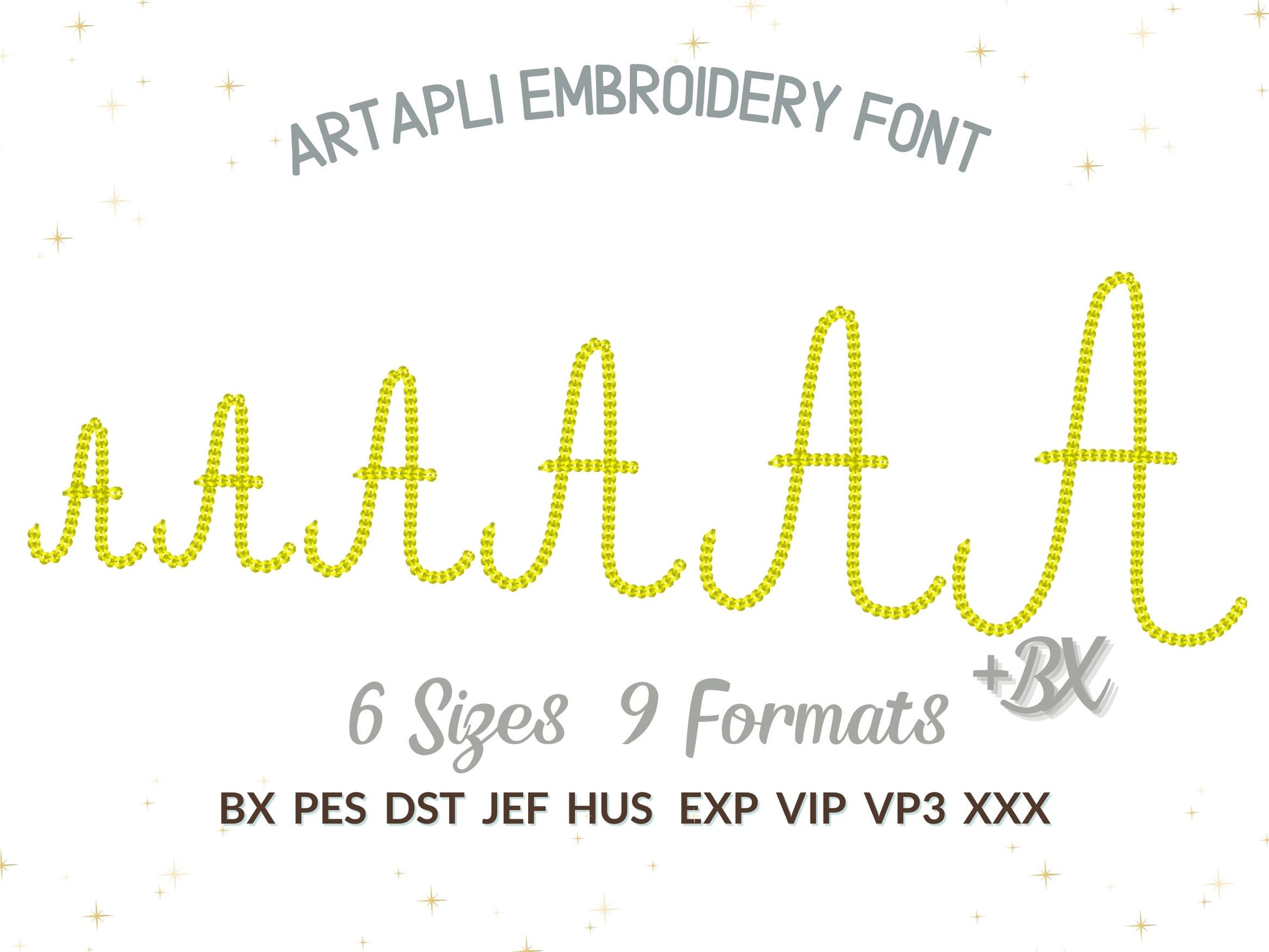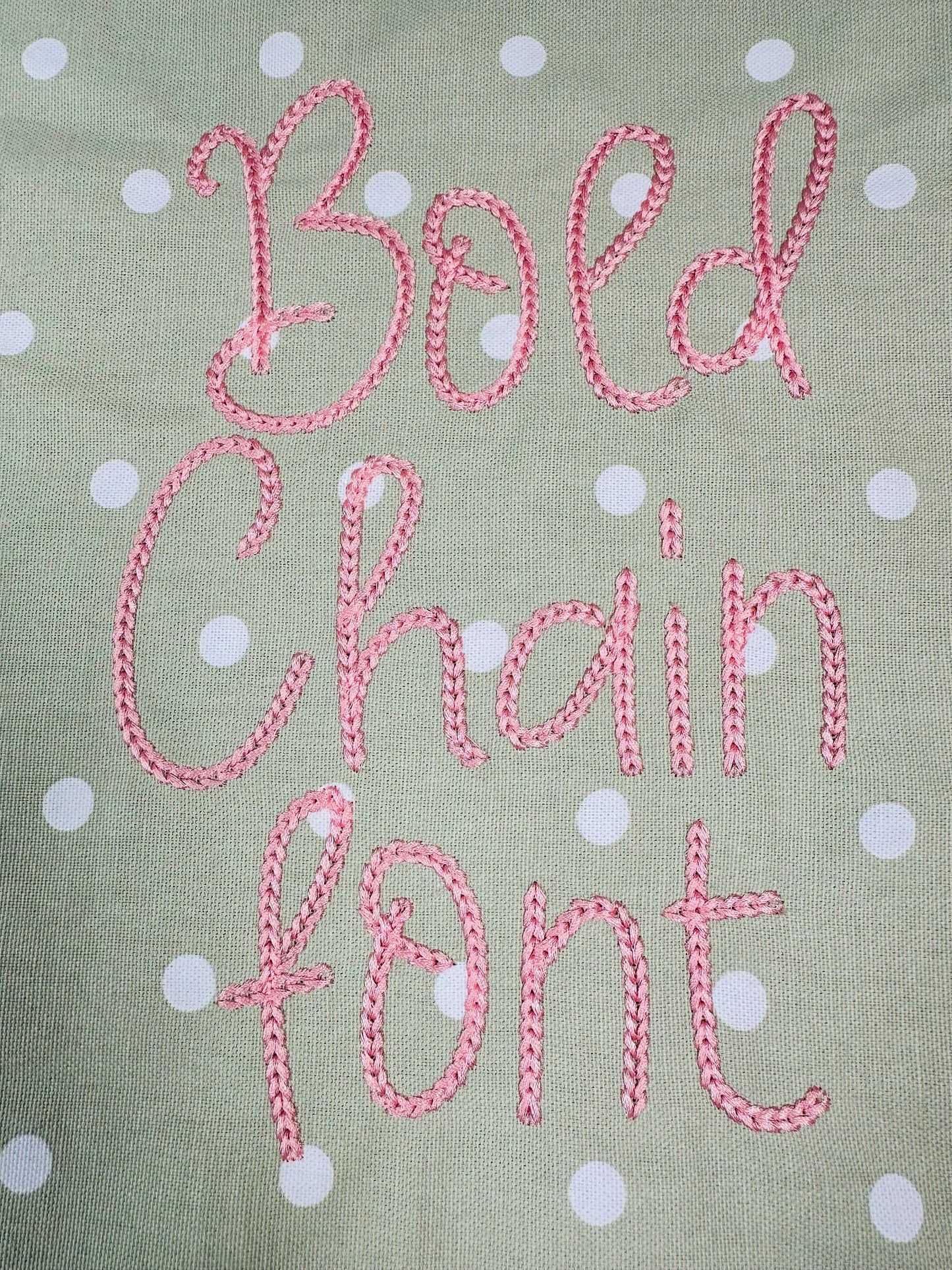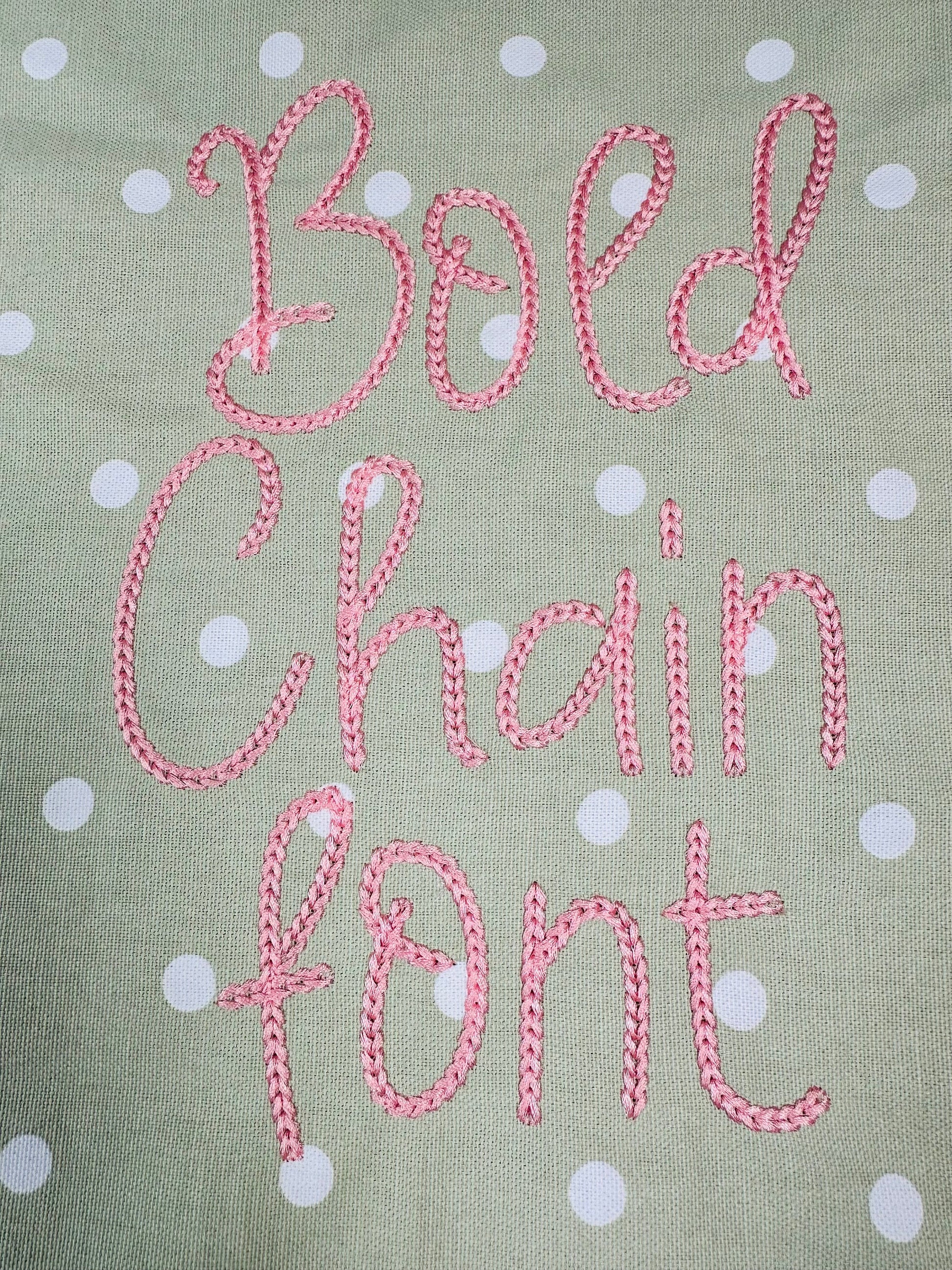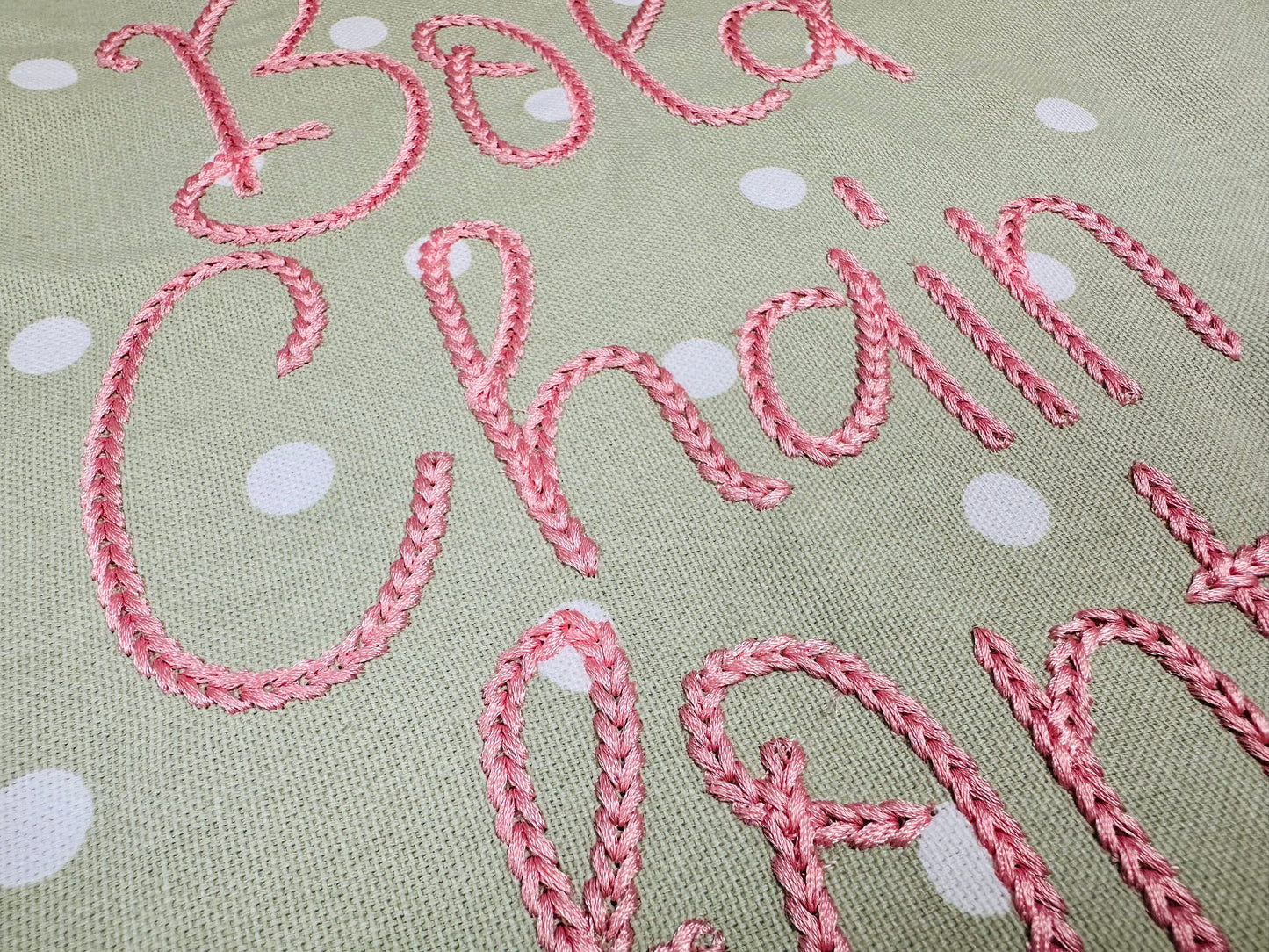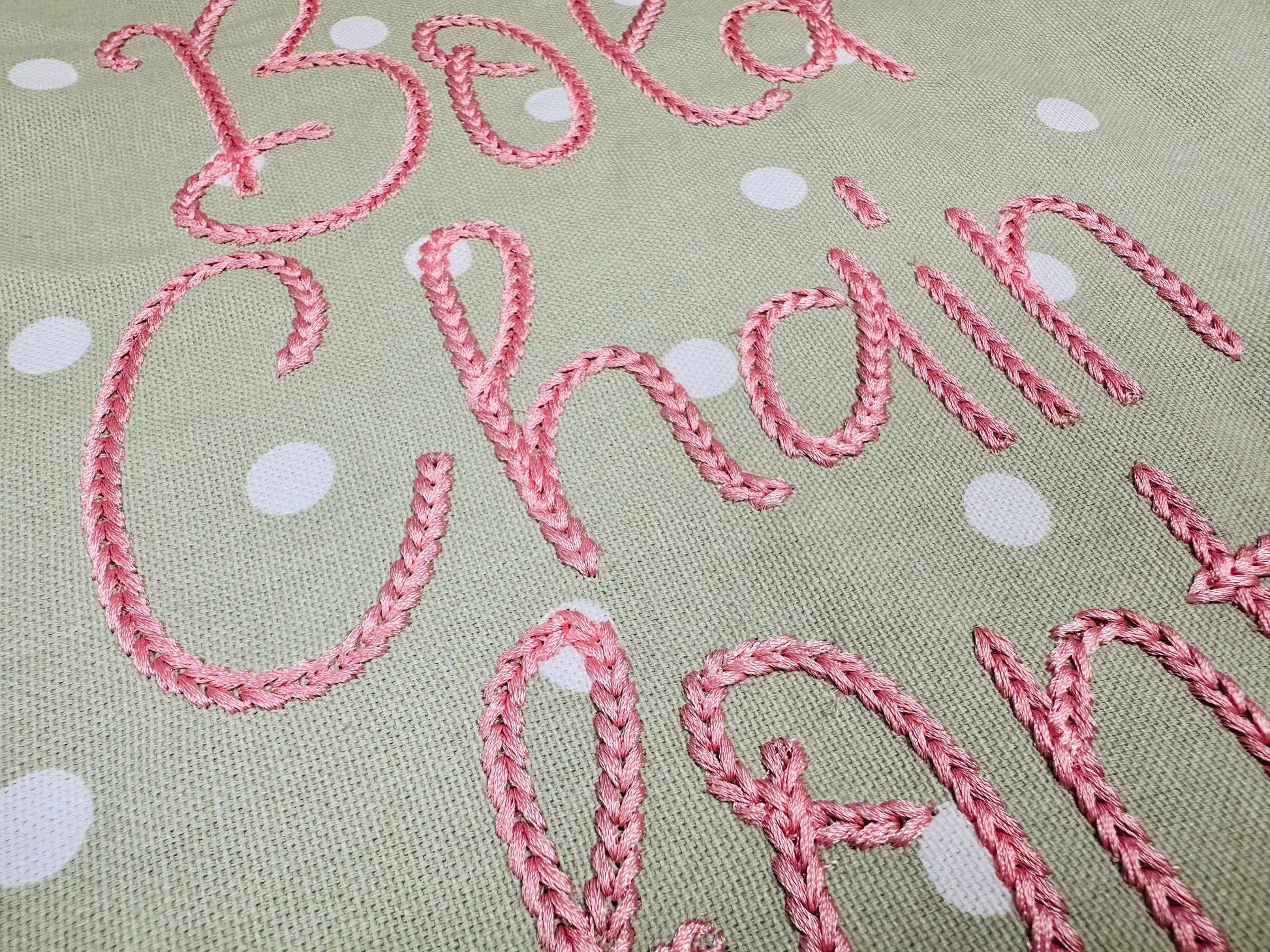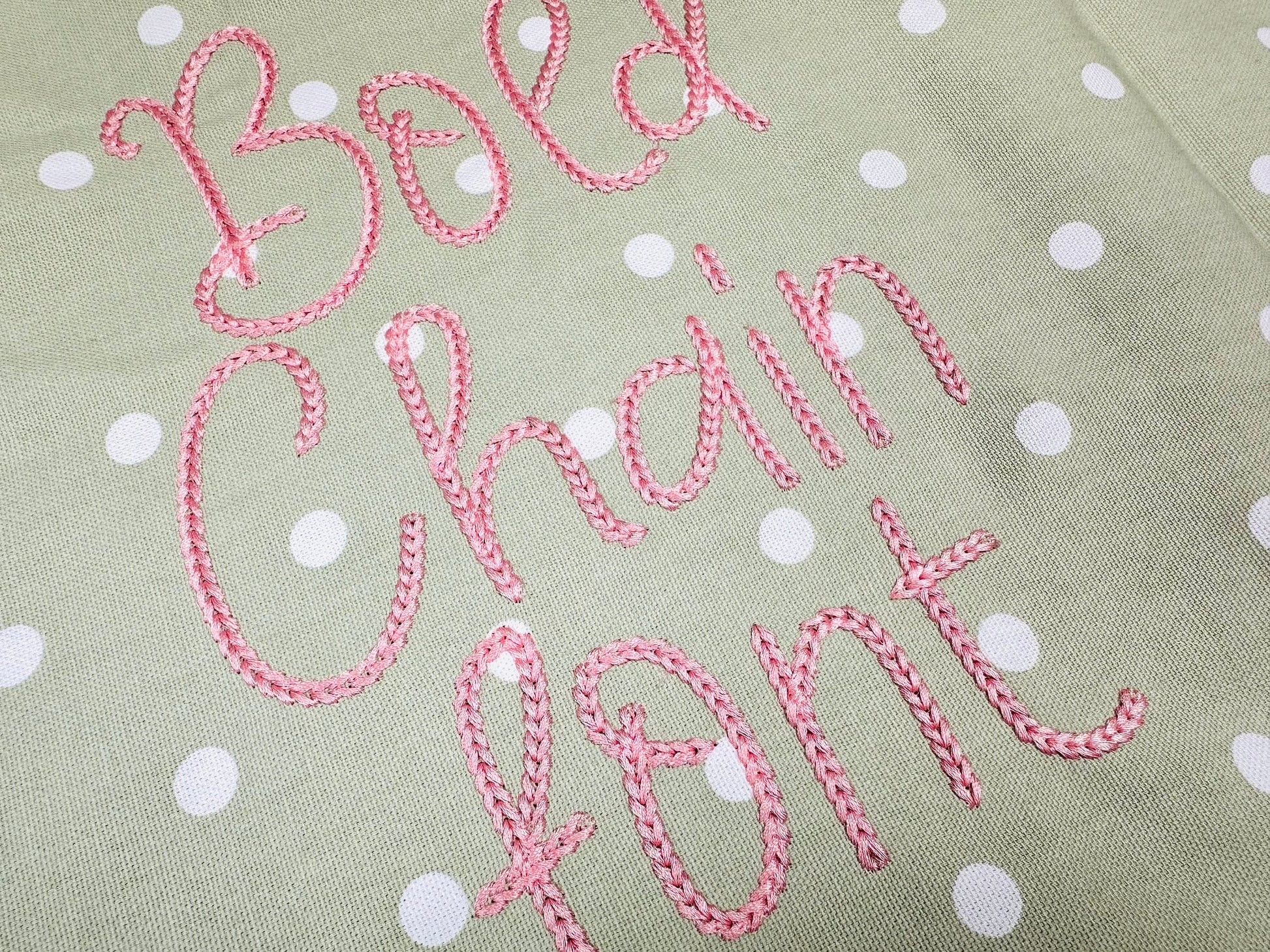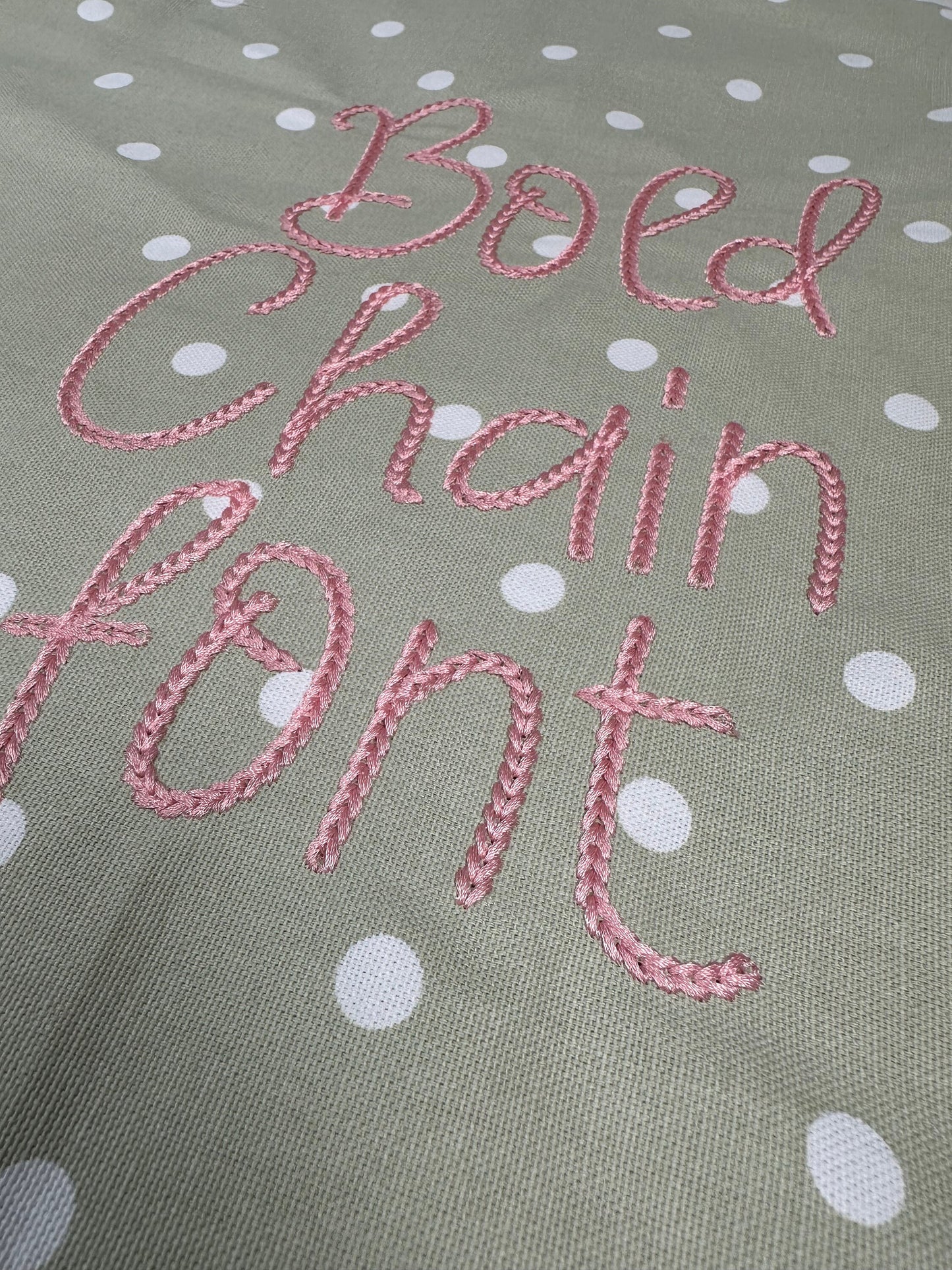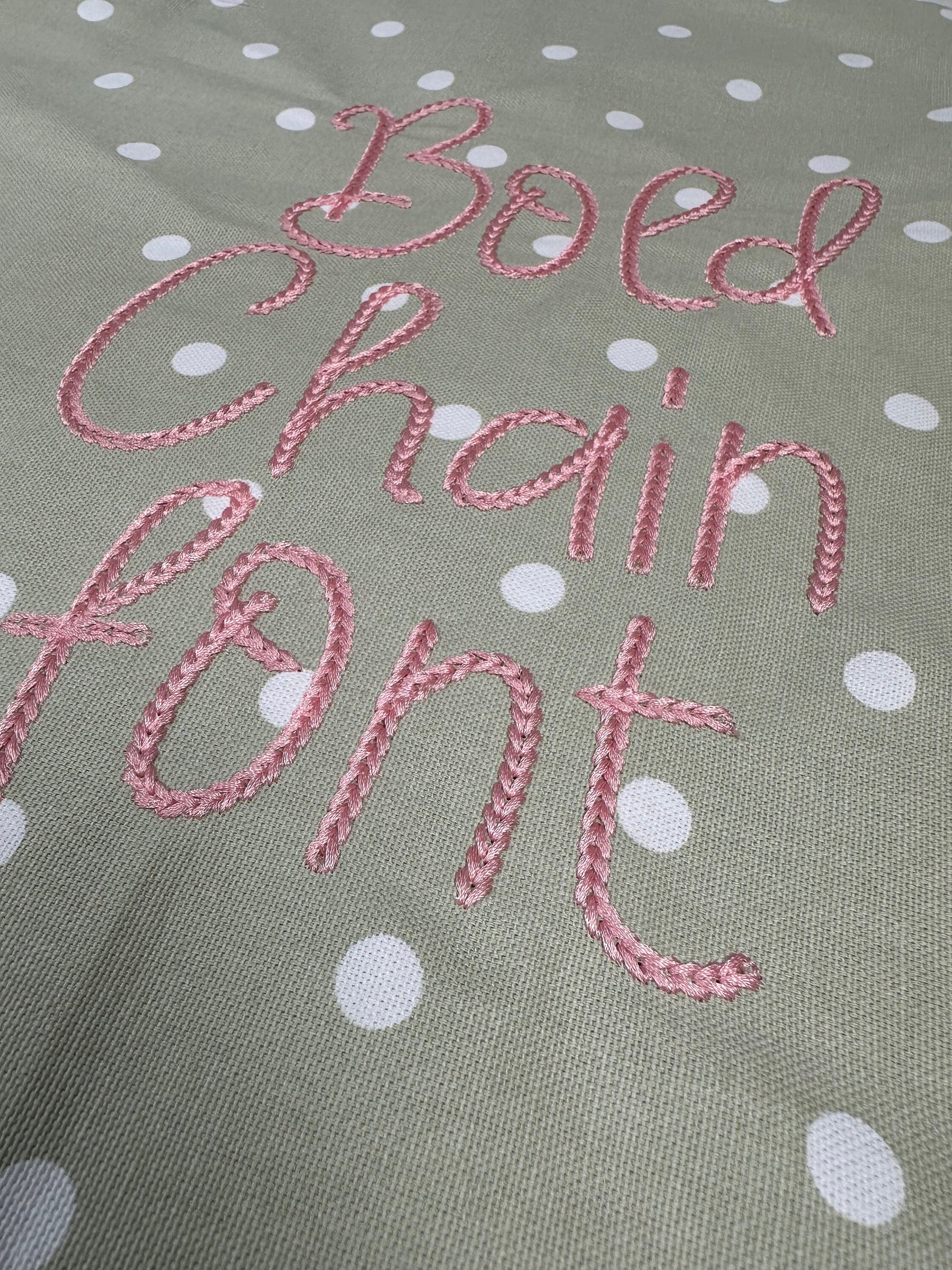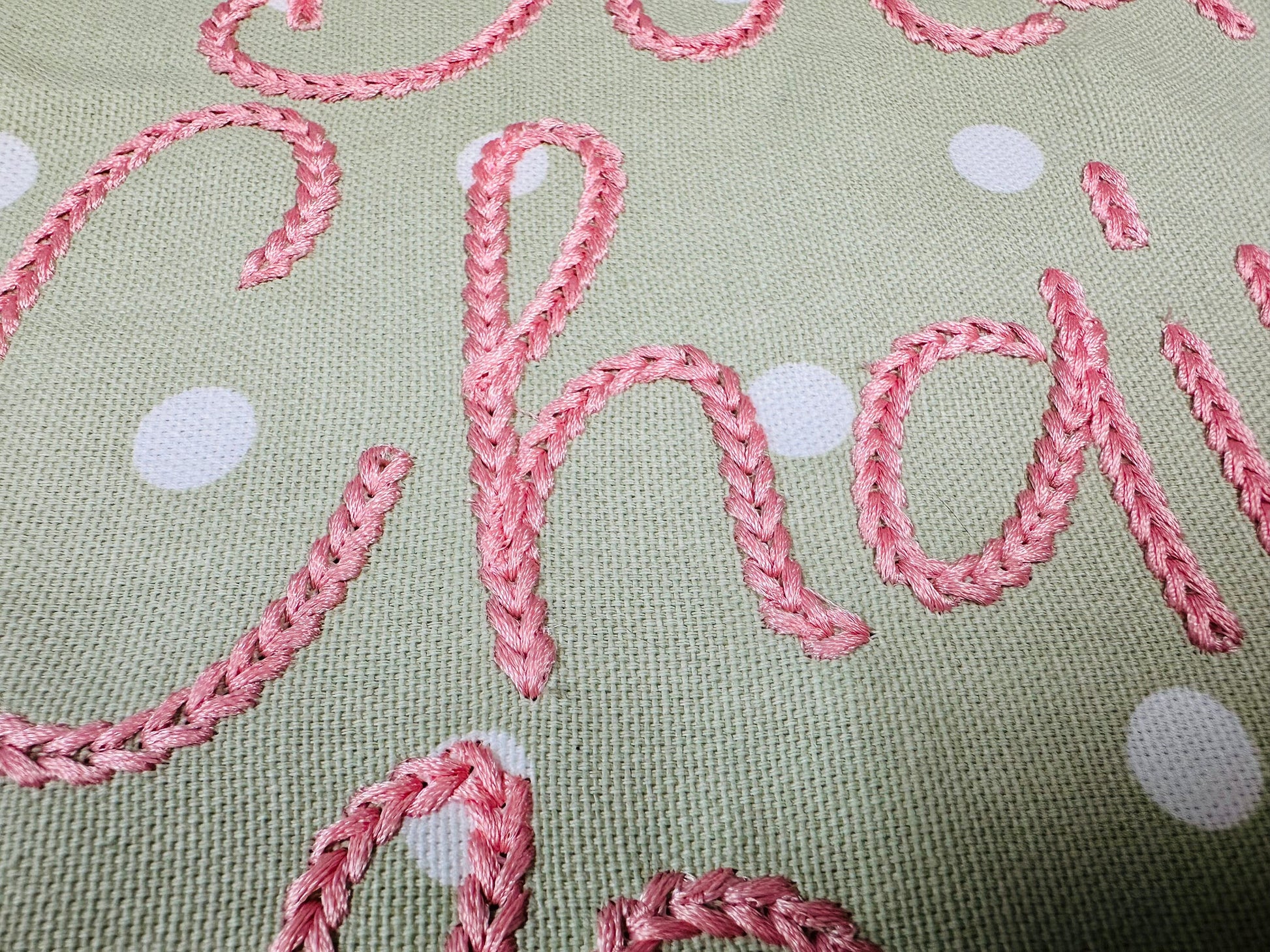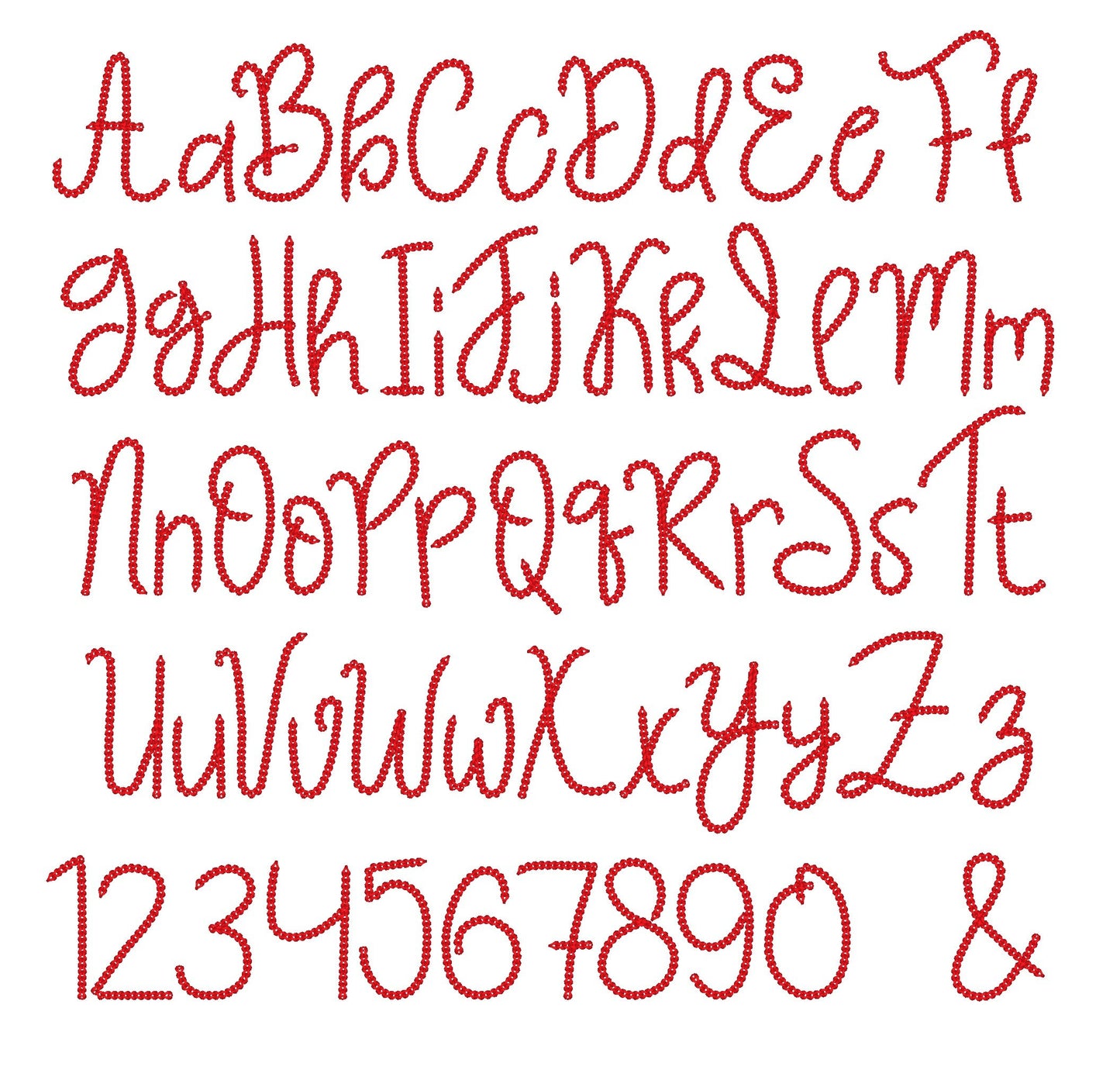
Or click to open the linkA narrow, bold chain stitch font with a handmade knit look. Made for names on sweaters, sweatshirts, beanies and blankets.
Uppercase and lowercase letters, numbers 0 to 9 and an ampersand. Six sizes: 2.2, 2.6, 3.2, 3.8, 4.5 and 5.5 inches.